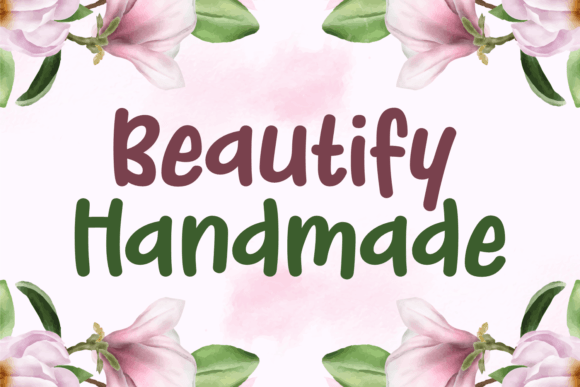
Adding a Touch of Elegance with the Right Font
Do you remember that moment when you stumbled upon the perfect font that made your design come alive? It’s like finding a hidden treasure that elevates your work to the next level. For designers, finding the right font can be a game-changer, and today we’re excited to introduce you to a stunning display font that’s sure to make your projects shine.
Meet Beautify Handmade Font, a chic and elegant design that’s perfect for adding a touch of sophistication to your work. Whether you’re creating logos, cards, websites, or quotations, this font is sure to bring a lovely rhythm and flow to your design. Its versatility makes it a valuable asset for any designer looking to add a personal touch to their projects.
Key Features of Beautify Handmade Font
- Font Family: Beautify Handmade Font is a unique, handwritten font family with 4 styles (Regular, Bold, Italic, and Bold Italic) to cater to various design needs.
- Size and Resolution: Designed to be highly legible, even at small font sizes (as low as 8pt). Supports resolutions up to 300 DPI for crisp and clear rendering.
- Unique Characteristics: The font features beautiful, hand-drawn letterforms with subtle imperfections, giving it a personal and organic feel that’s perfect for creative projects.
- Kerning and Ligatures: Includes expertly crafted kerning and ligatures to ensure smooth text rendering and a polished appearance.
Review of Beautify Handmade Font
I recently had the chance to try out the Beautify Handmade Font, and I must say it’s a unique and interesting addition to any design project.
- Distinctive, Handmade Style: This font stands out from the crowd with its beautiful, hand-drawn feel.
- Wide Character Set: The font includes a wide range of characters, including numbers, punctuation, and international characters.
- High-Quality Rasterization: The font looks great in both raster and vector formats.
- Not Suitable for Body Text: Due to its decorative nature, this font is best used for headings and titles rather than body text.
- Limited Ligatures and Kerning: While the font looks great overall, it could benefit from more advanced ligature and kerning support.
- Not Ideal for Small Text: The font’s unique style can make it difficult to read in small sizes, so be sure to test it at different sizes before use.
Overall, I think the Beautify Handmade Font is a great choice for designers looking to add a touch of handmade charm to their projects. With its unique style and wide character set, it’s sure to stand out from the crowd. However, be aware of its limitations, especially when it comes to body text and small sizes.
Tips for Getting the Most Out of Beautify Handmade Font
To get the most out of Beautify Handmade Font, try the following:
- Use it in conjunction with other creative fonts to add visual interest.
- Use it for headings and titles to add a touch of elegance.
Beautify Handmade Font is perfect for:
Alternatives to Beautify Handmade Font for Designers
Great Vibes Font is a modern, elegant script font that’s perfect for designers who want a clean and sophisticated look. It’s ideal for headings, titles, and other display text where a touch of elegance is needed. Compared to Beautify Handmade Font, Great Vibes Font has a more refined and polished look, making it suitable for a wider range of design projects.
Crimson Text Font is a serif font that’s designed to evoke a sense of classic elegance. It’s a great choice for designers who want a timeless look that’s both sophisticated and easy to read. Compared to Beautify Handmade Font, Crimson Text Font has a more traditional feel, making it suitable for projects that require a touch of nostalgia.